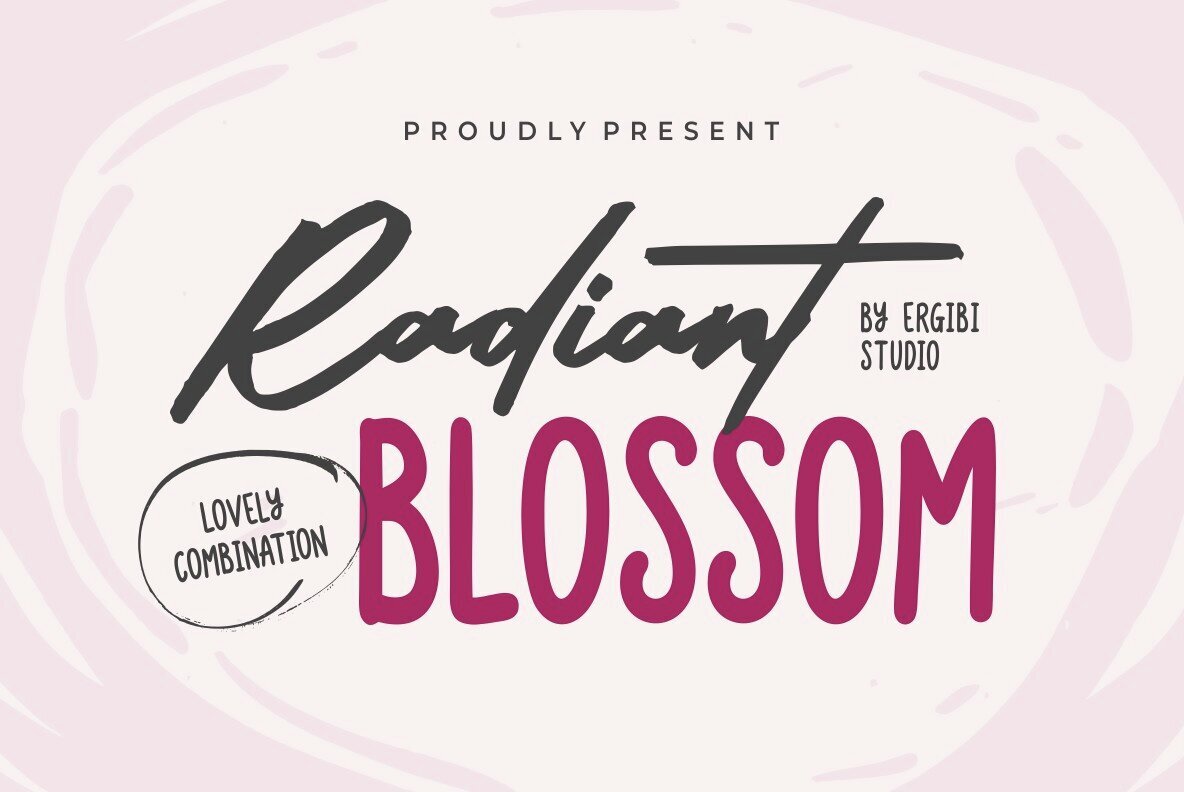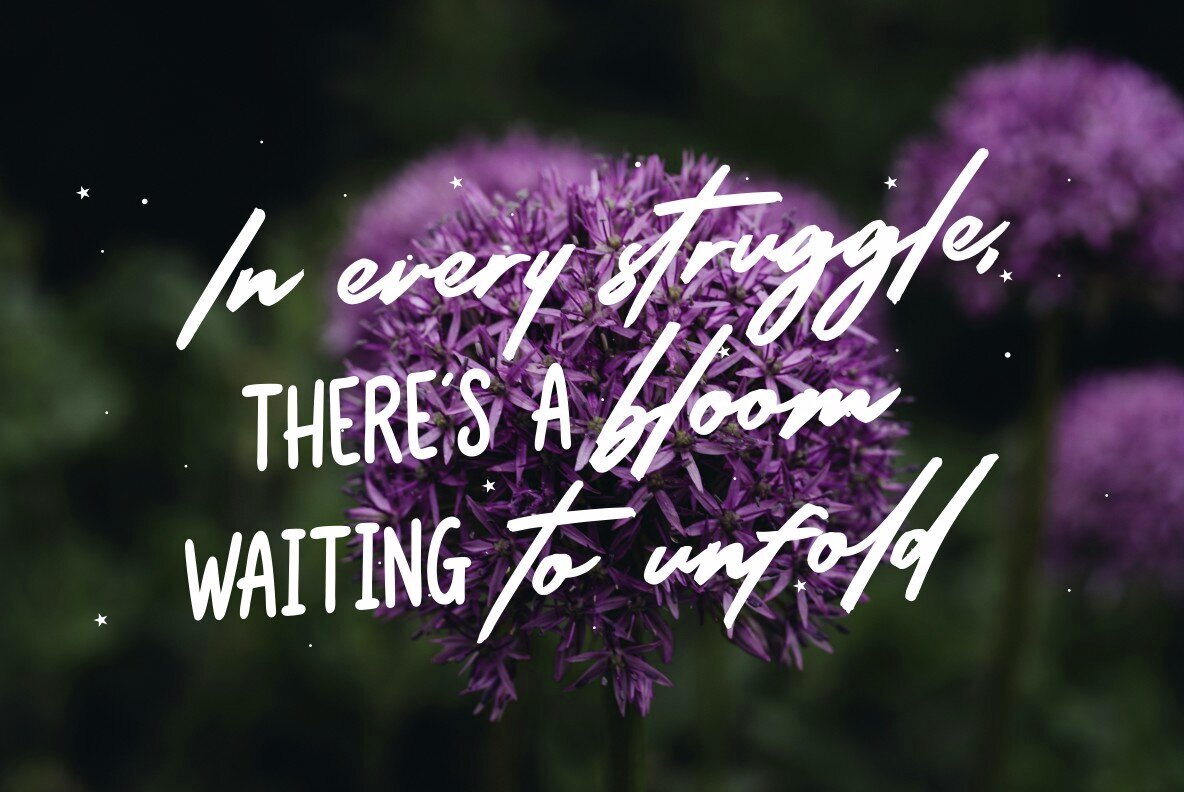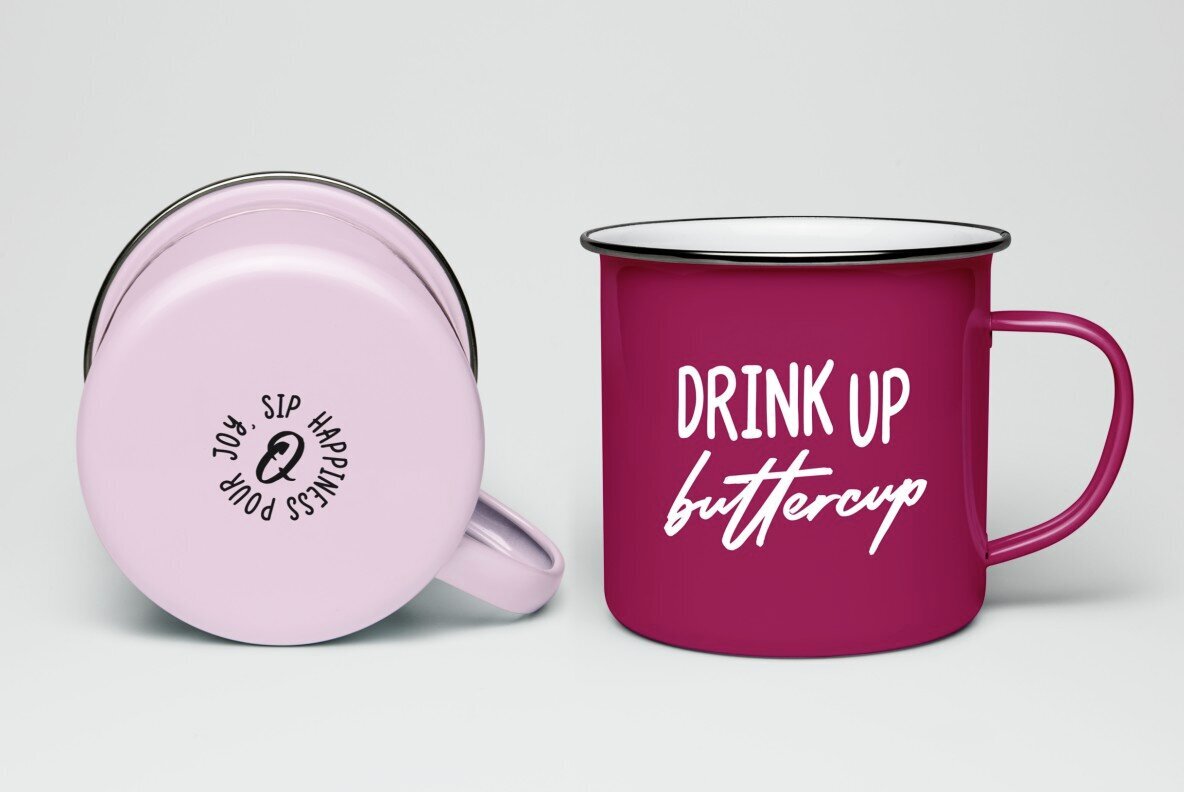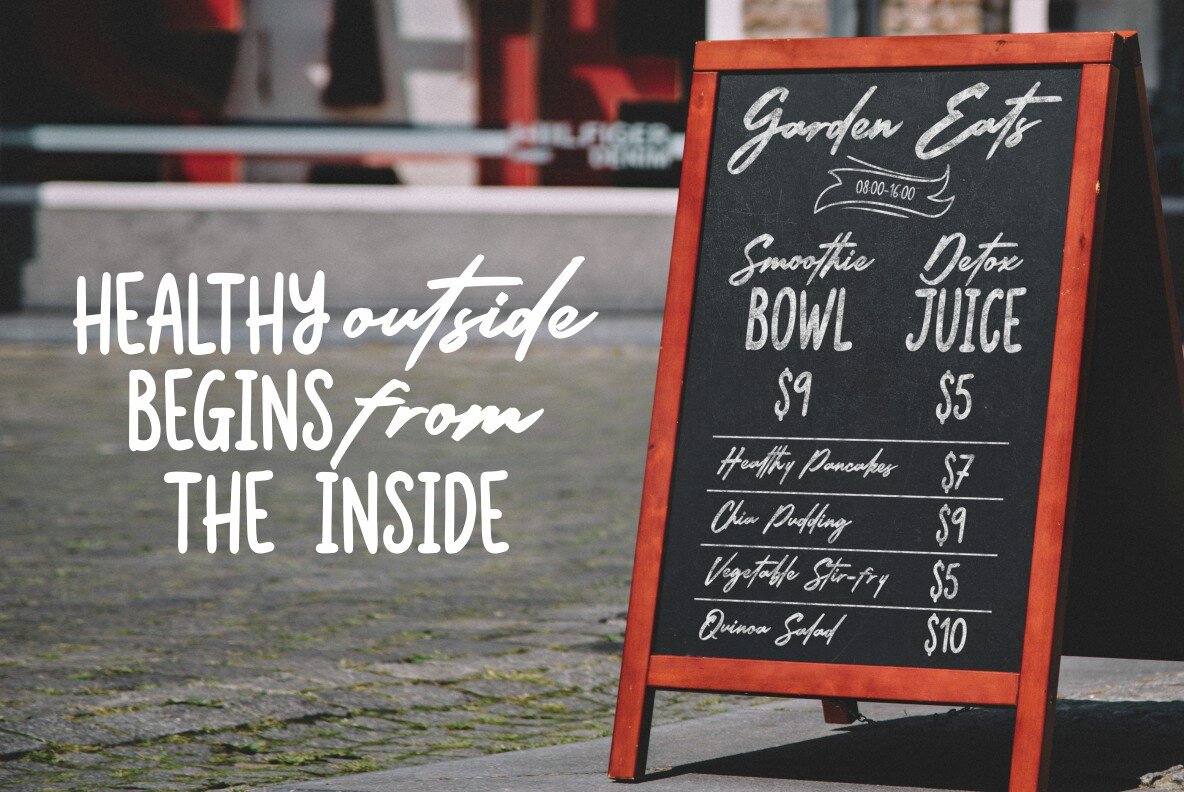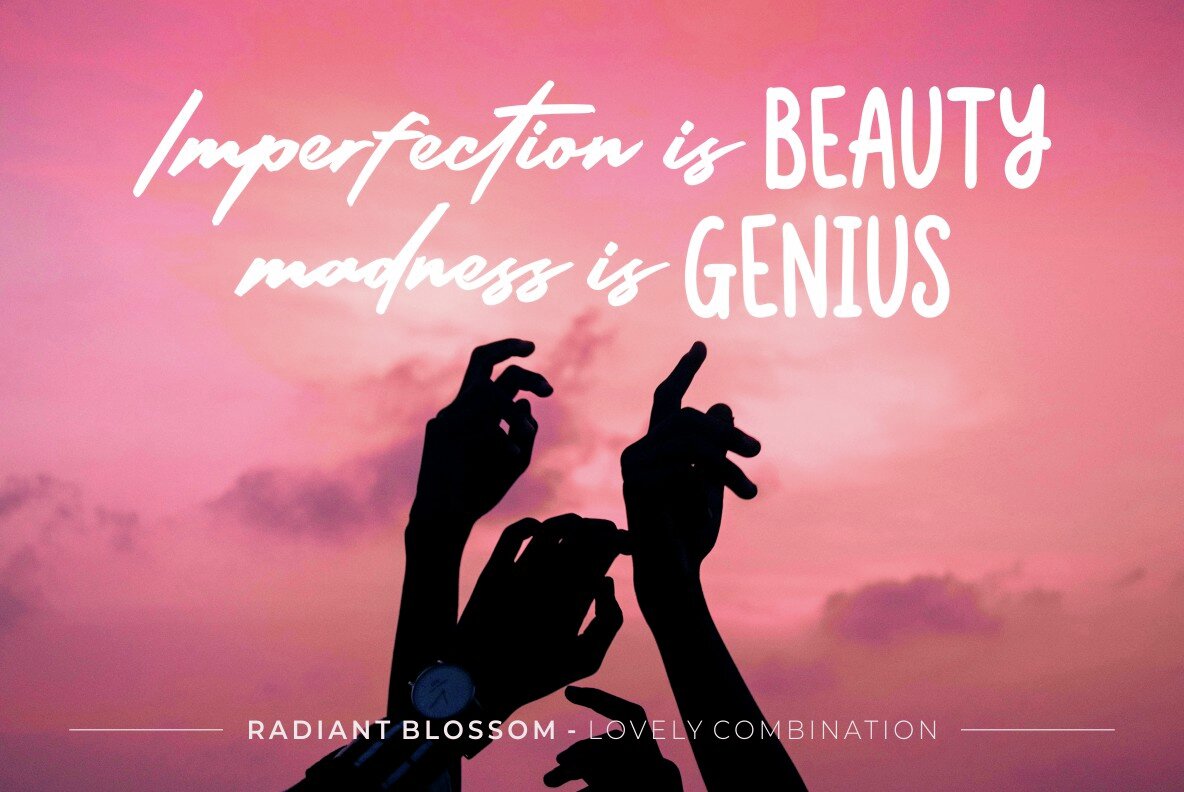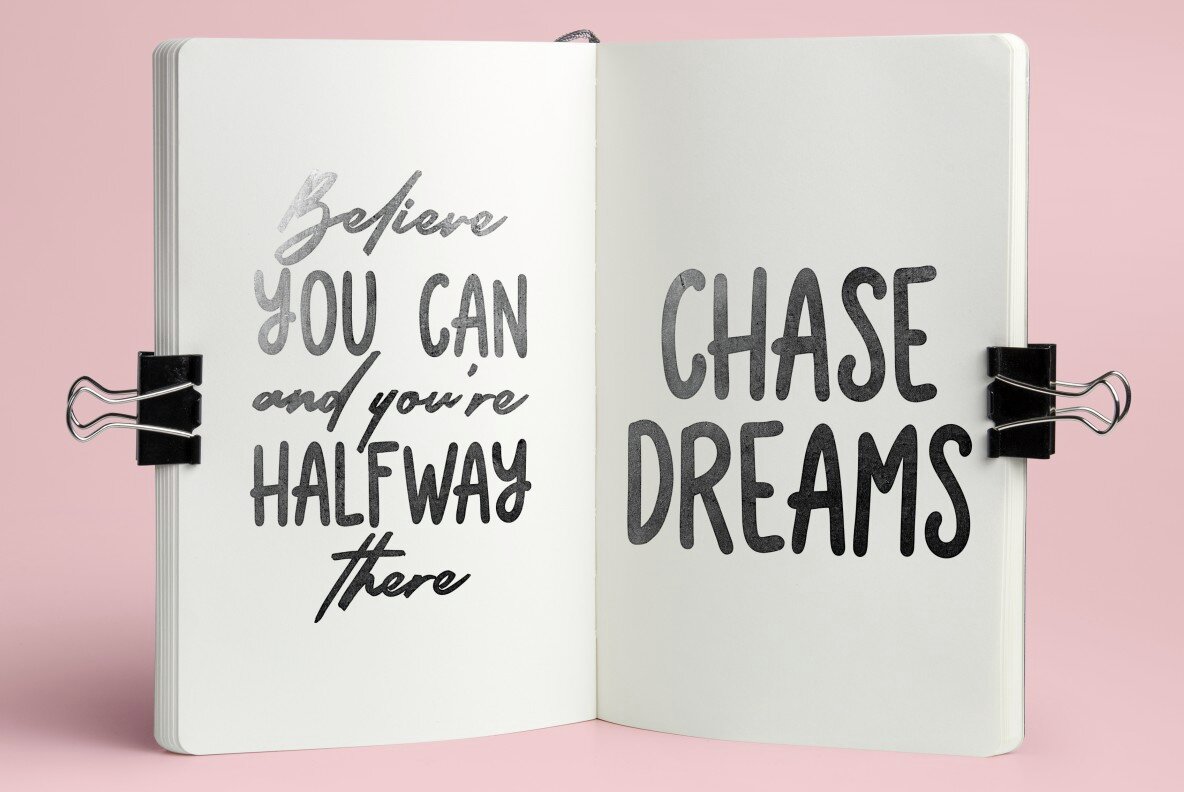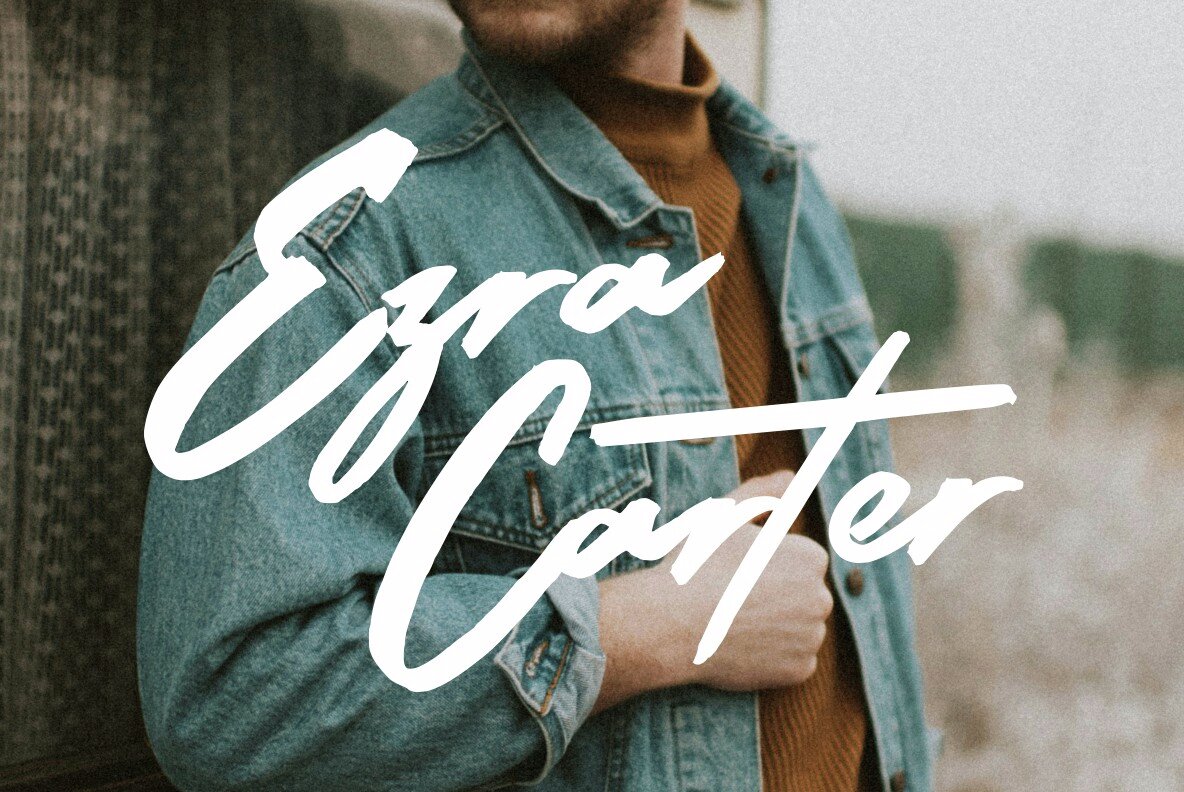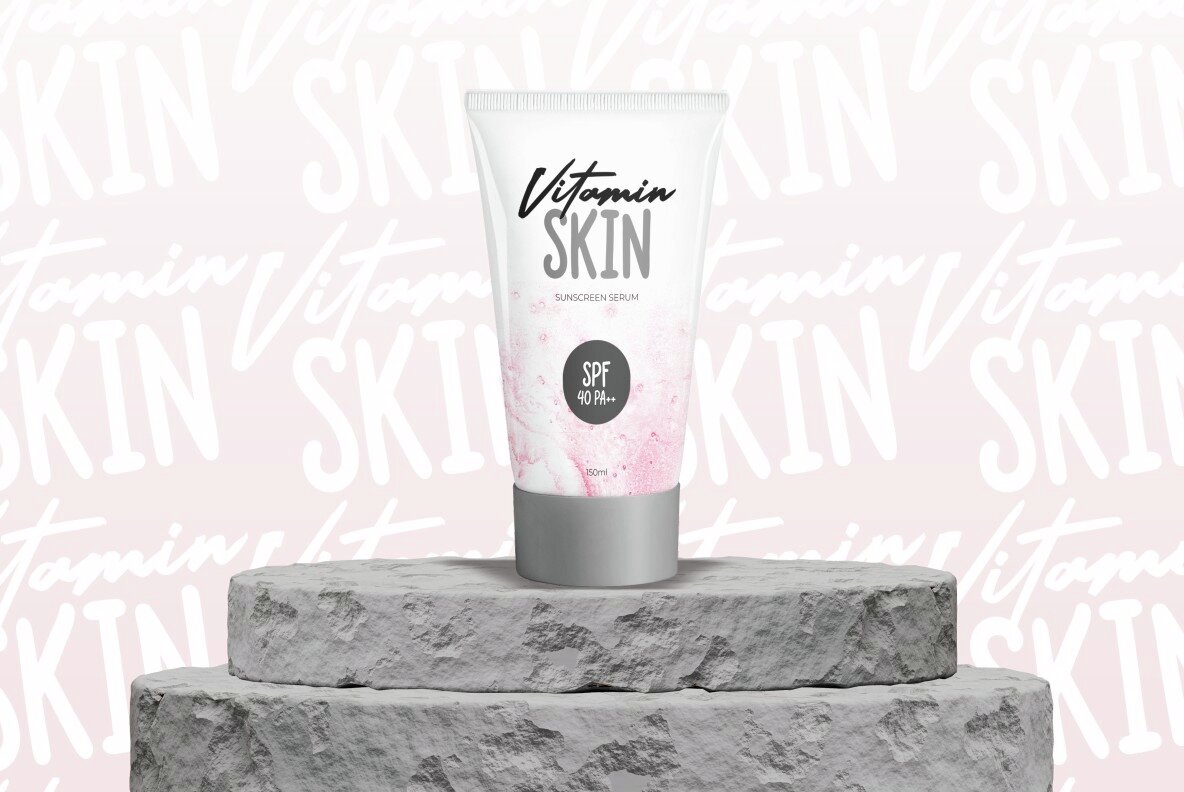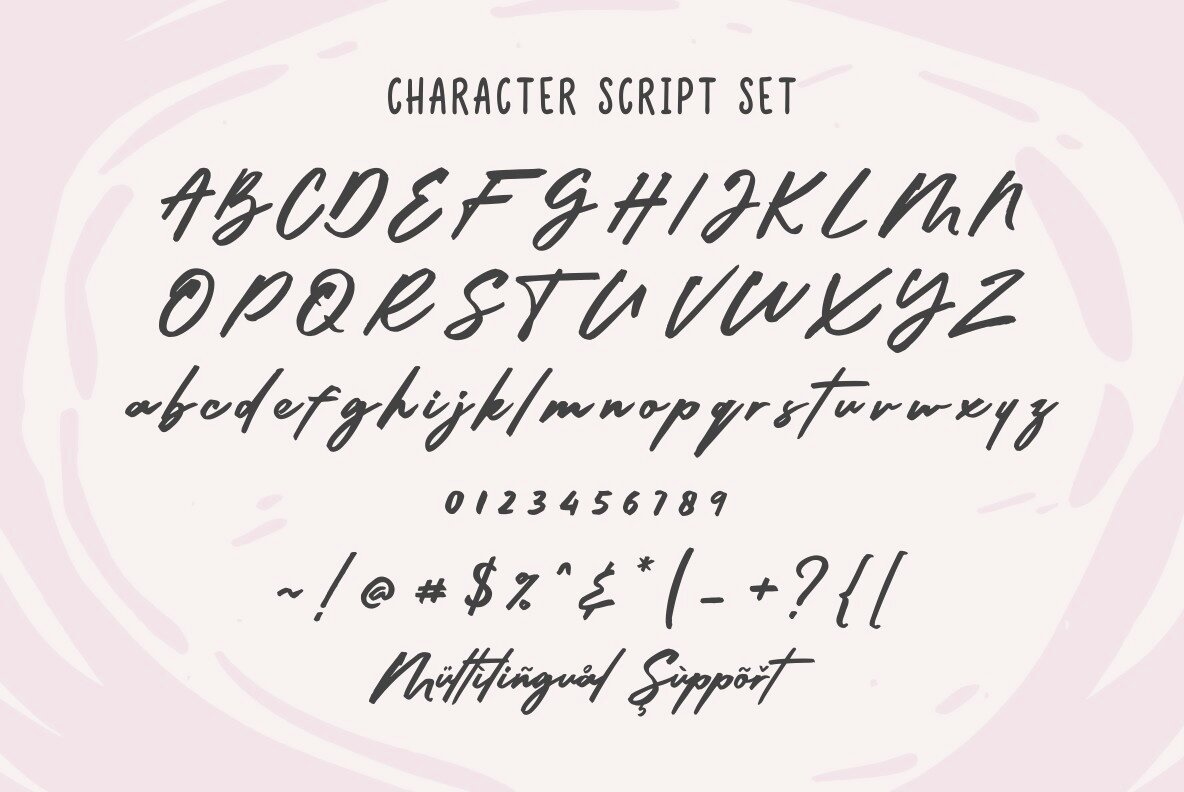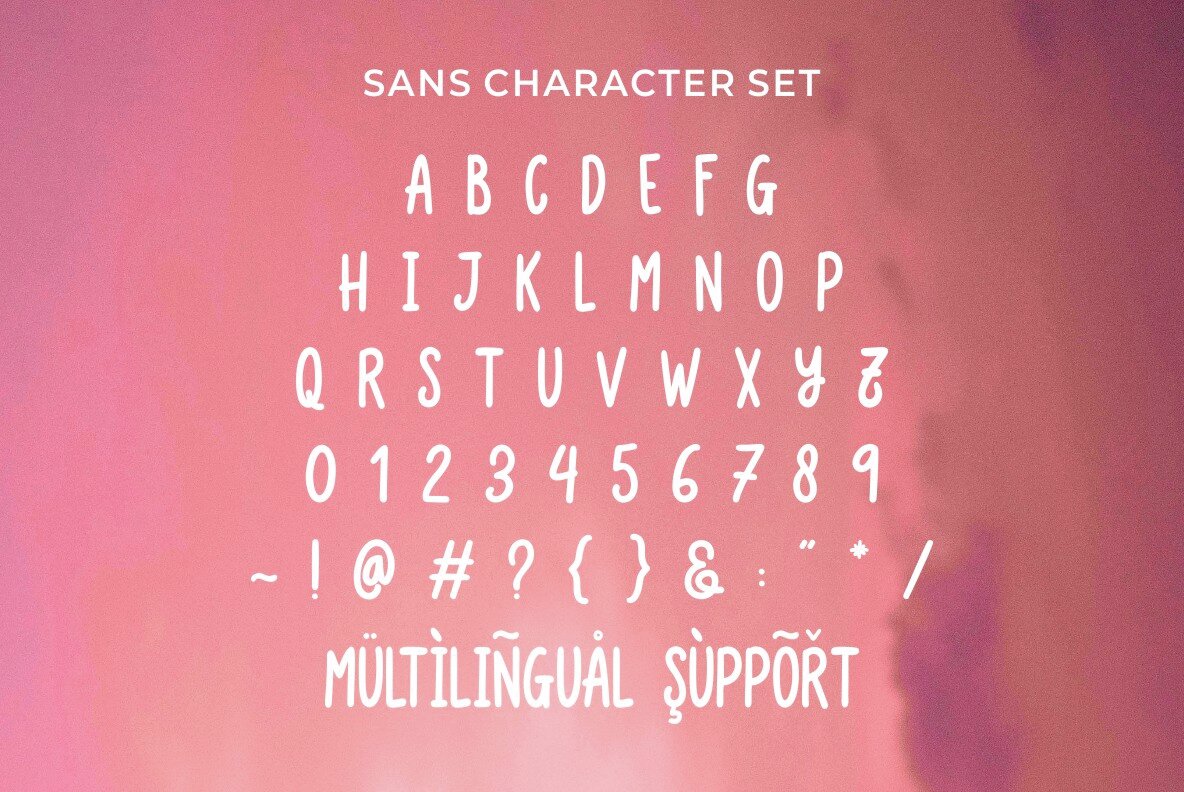
Radiant Blossom Font
Radiant Blossom combines a charming script with a playful sans serif, offering an elegant yet fun aesthetic. The script adds a romantic touch, while the sans components provide a light-hearted, modern feel. Ideal for invitations, branding, and packaging, this font brings both beauty and joy to creative projects.
Features of Radiant Blossom include standard glyphs, ligatures, and international accents, ensuring a seamless design experience. This versatile typeface is compatible with both PC and Mac, and its simple installation makes it user-friendly for any designer.